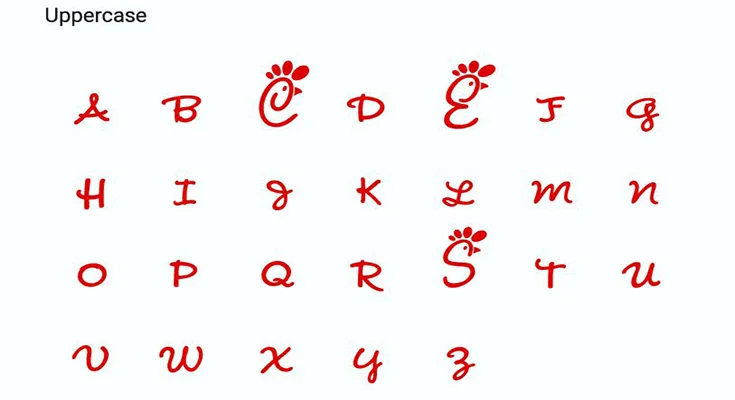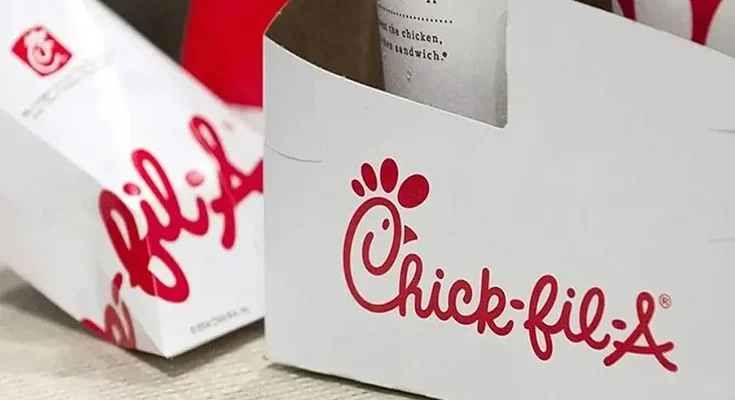
Introducing Chick-fil-A Logo Font! Chick-fil-A is the largest chicken, and third-largest American fast food restaurant chain, specializing in chicken sandwiches.
The Chick-fil-A font has a global reputation, meaning it’s a great choice for any graphic designer. With its help, you can create a unique cover or packaging for your product.
“[Chick-fil-A or Chicken Hut typeface consists of 93 characters and 74 unique glyphs with cartoon-type texture and Truetype features]”.
• Because this feature makes it unique and helps to add more creativity throughout the typeface.